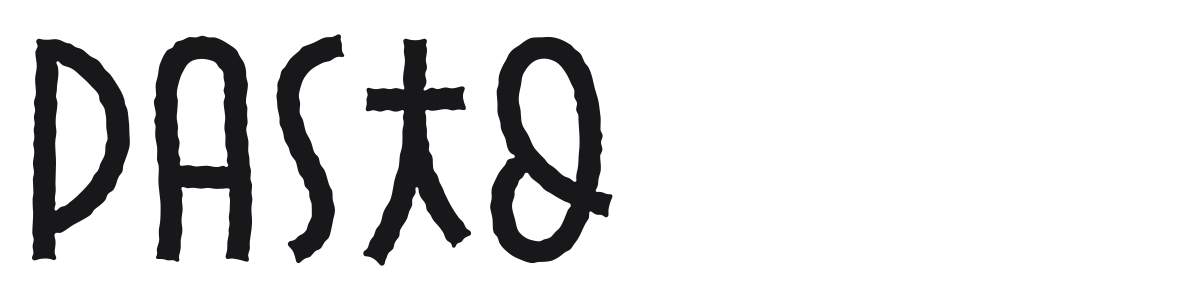
Pasto
Pasto is a hand-drawn display face by Julia Martinez Diana of Antipixel with a naive, folk-art character that feels like it was scratched or carved rather than set. The strokes are monoweight but deliberately uneven, with unconventional letterforms that give certain characters a runic or primitive quality. It carries strong personality at large sizes, making it well-suited for branding, packaging, and poster work that wants an artisanal, handcrafted feel.